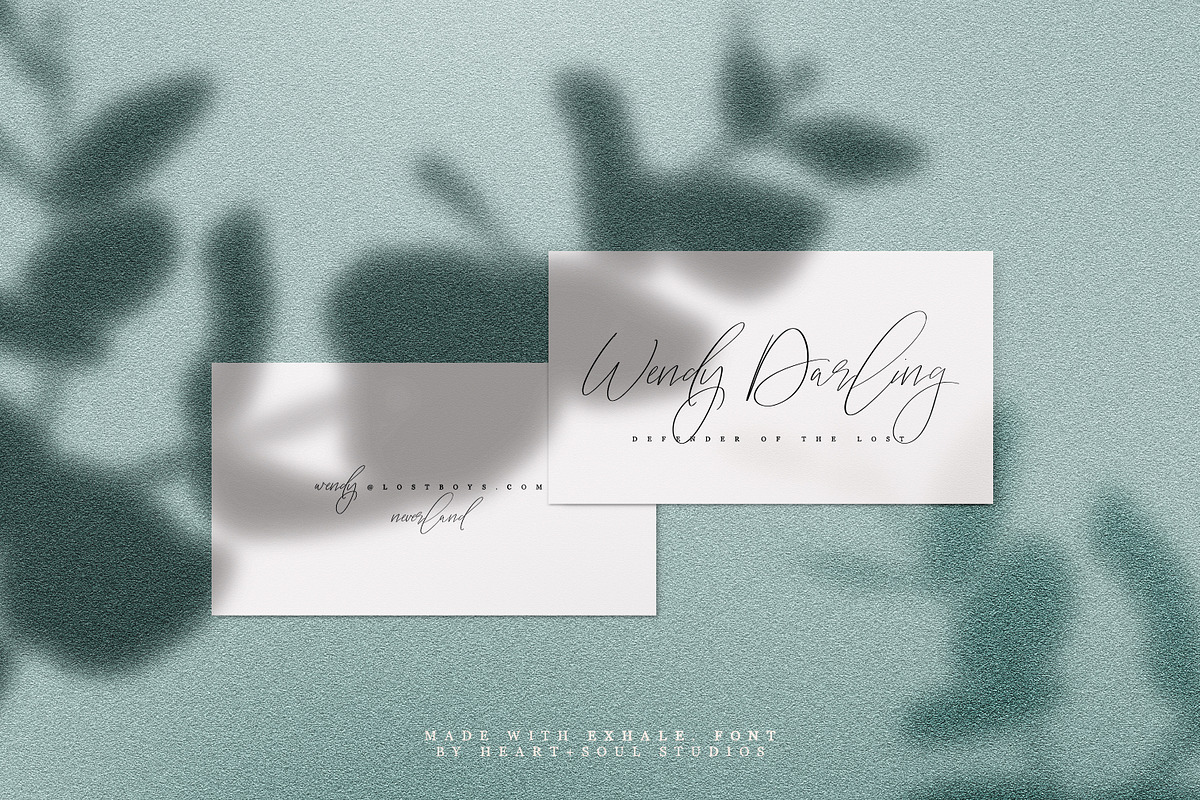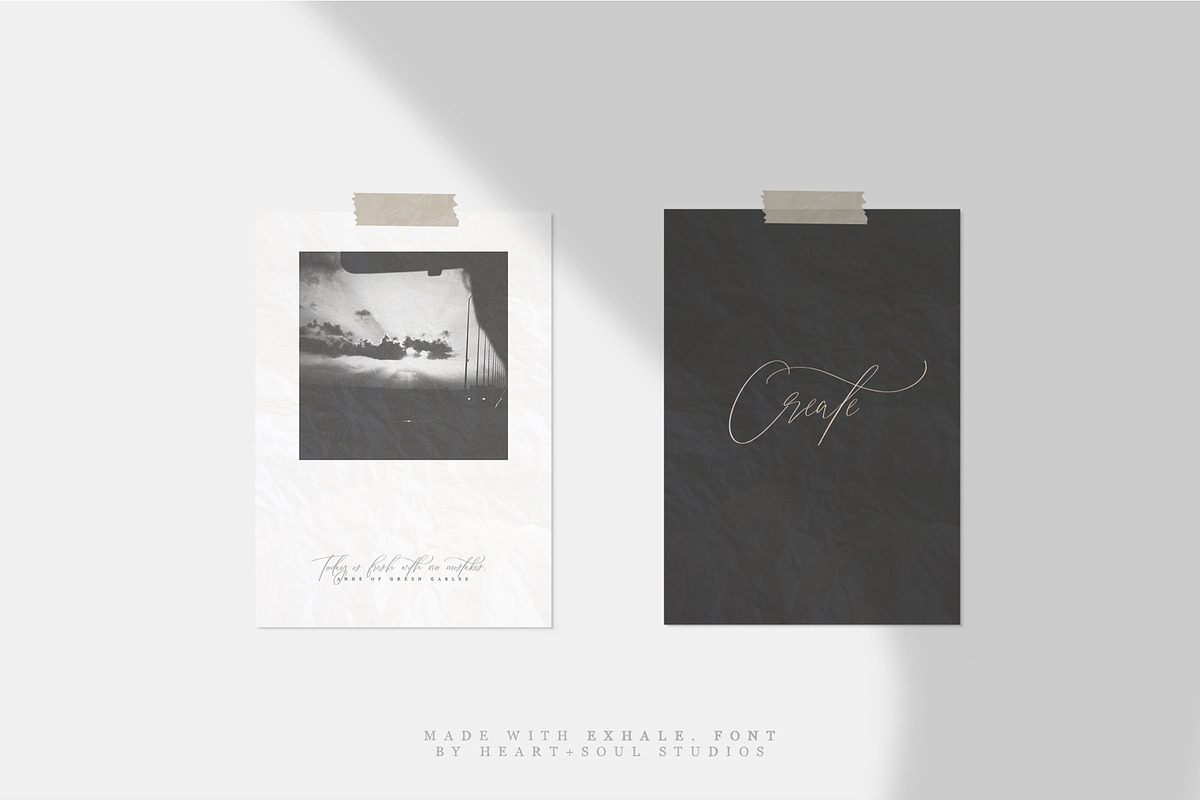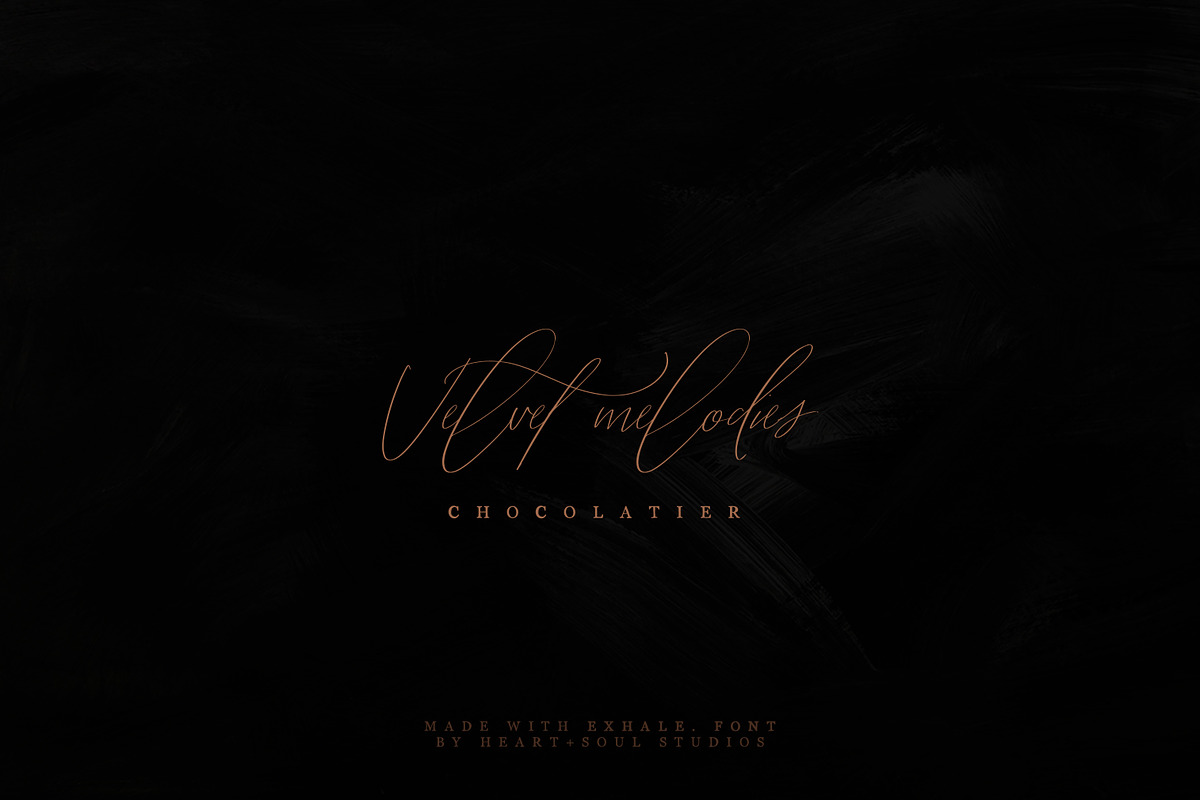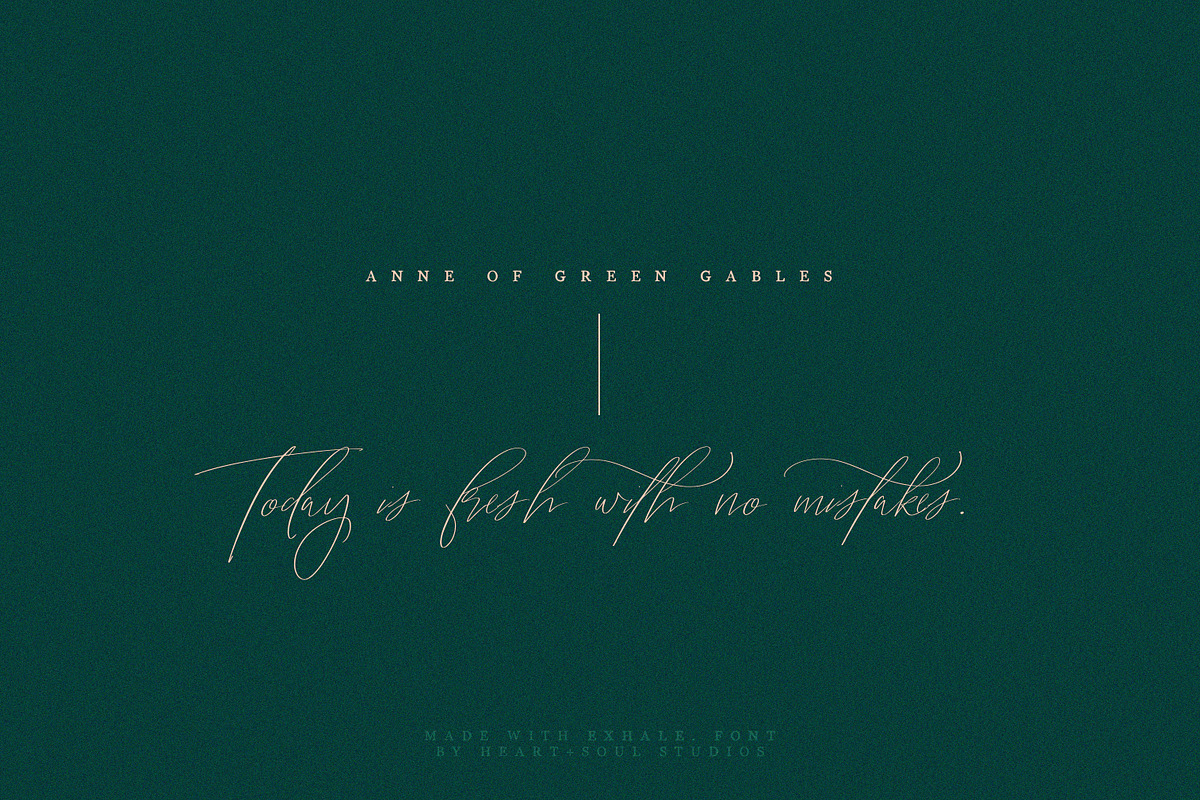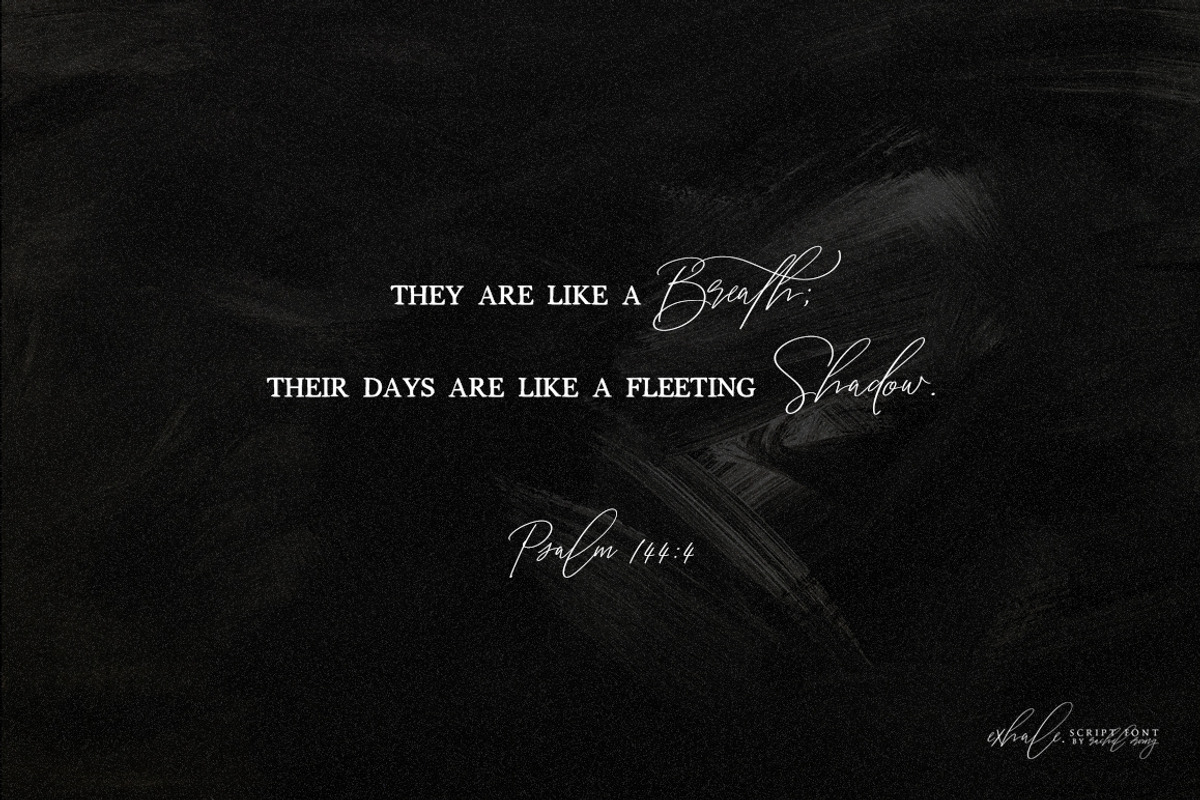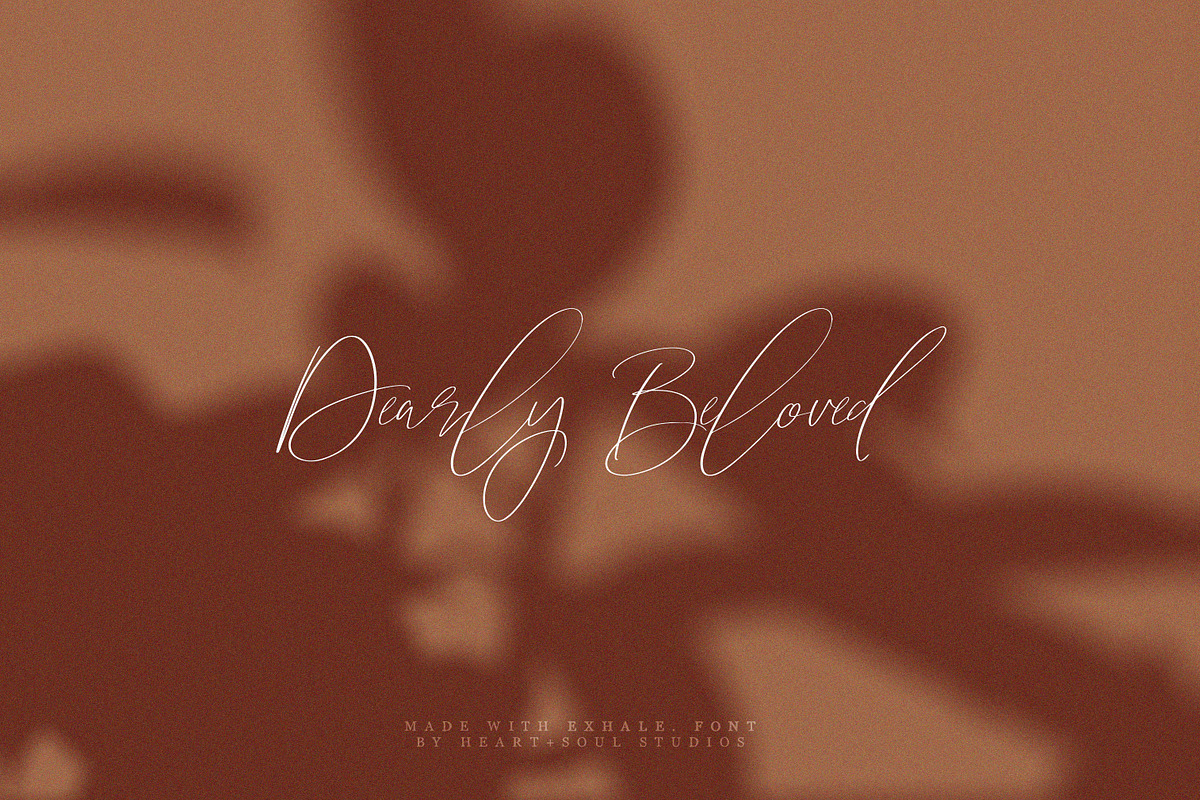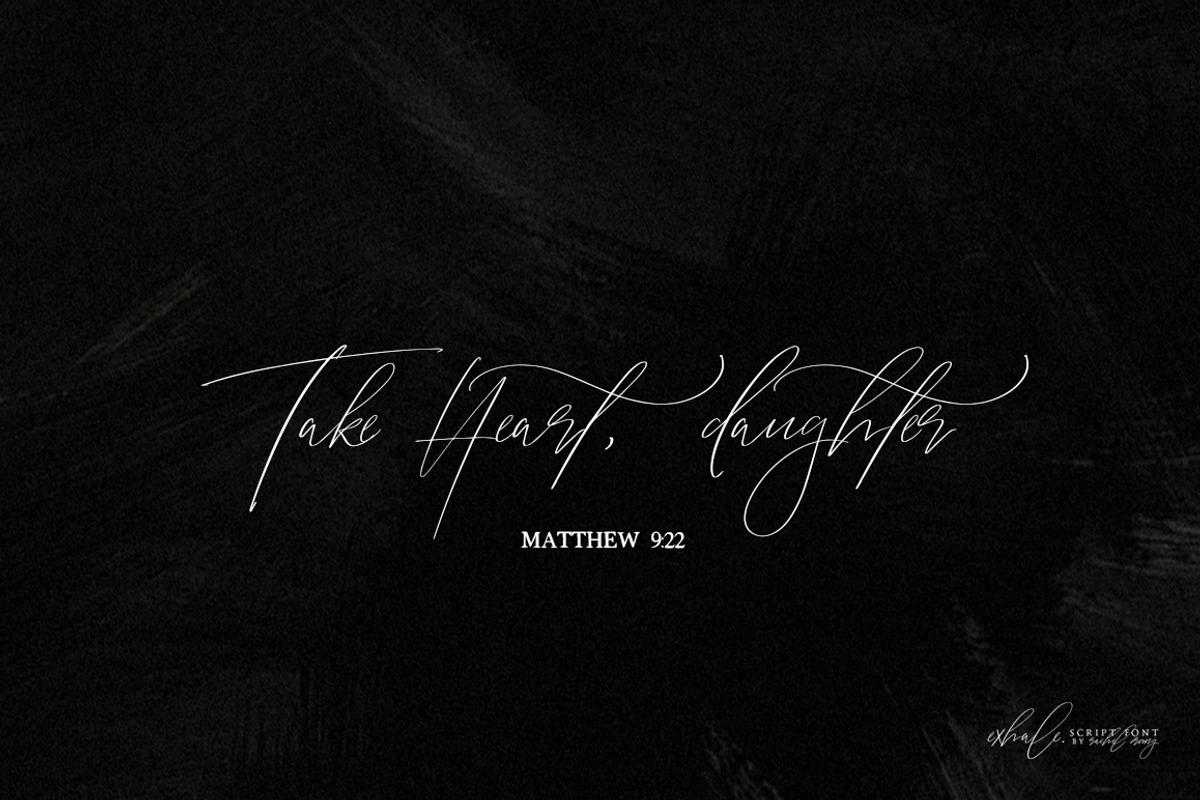
exhale. | calligraphy script font
Inspired by the very breath of life, the awe of the One who first breathed into all Creation, and the grace by which we take our each and every breath, exhale. is a timeless, signature-style, hand-written script font.
Intentionally crafted for creators, exhale. offers an elegant typographic solution for creative projects.